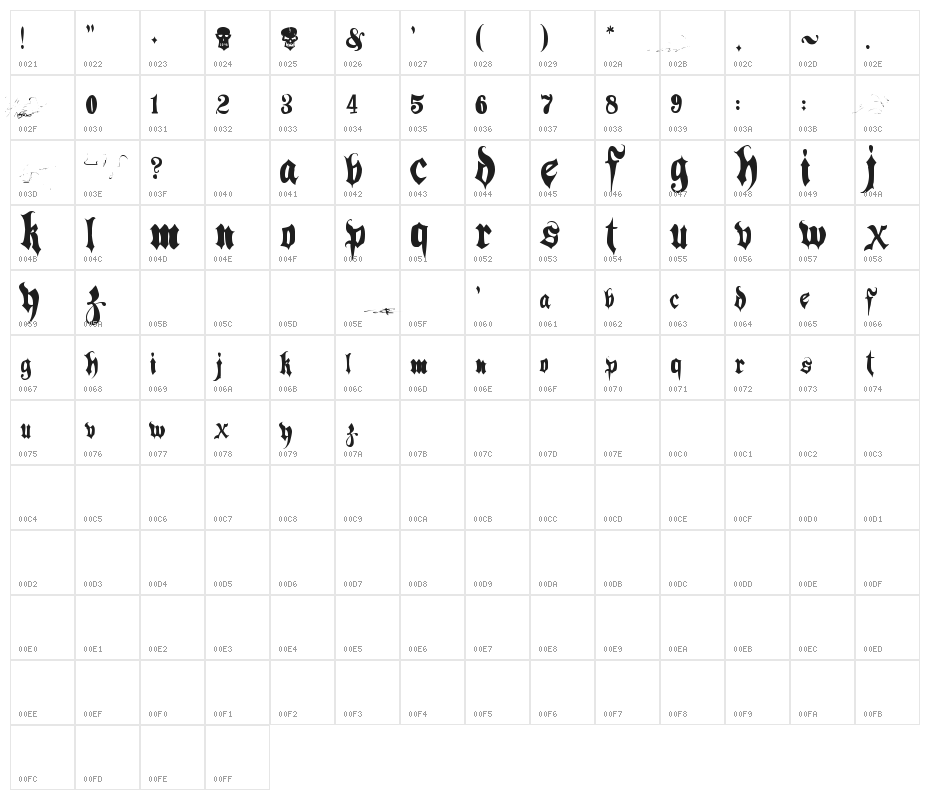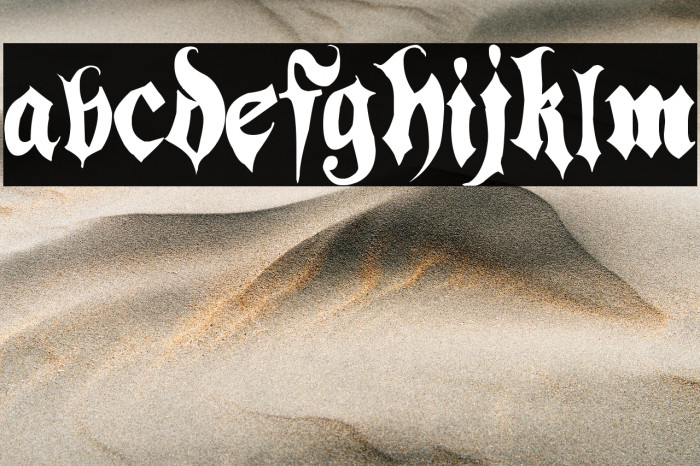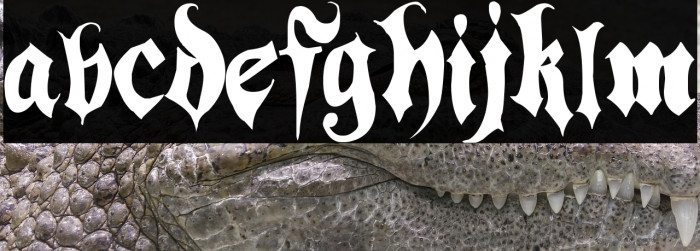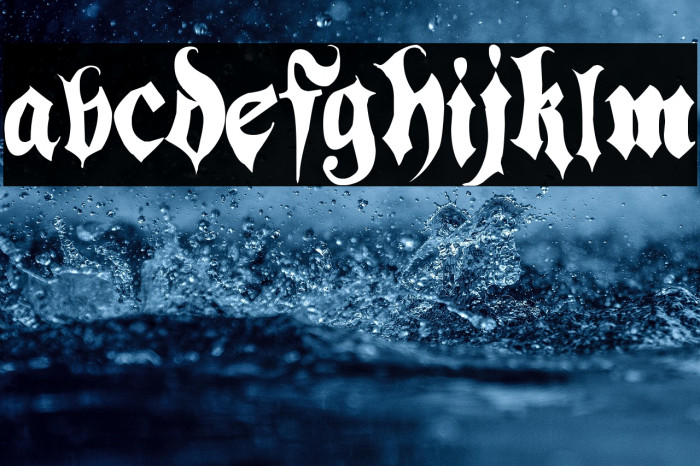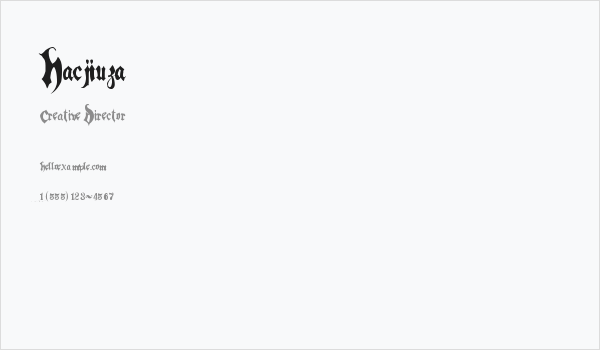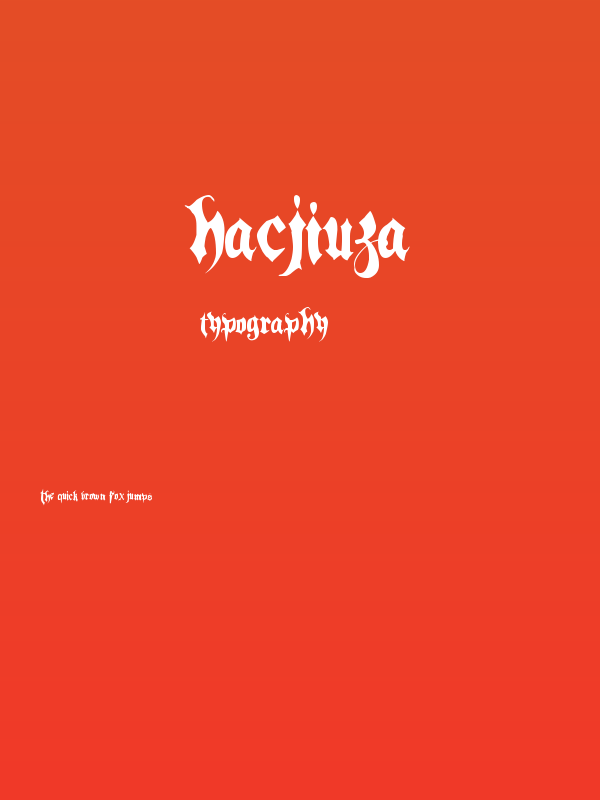
Hacjiuza Font
Hacjiuza Description
This font features a bold and dramatic style with intricate details reminiscent of traditional calligraphy and Gothic influences. The characters are sharply defined with pointed serifs and elaborate strokes, creating a sense of elegance and historical depth. The uppercase and lowercase letters maintain a consistent design, emphasizing verticality and ornate flourishes. The numerals and special characters complement the alphabet with similar stylistic elements, enhancing the overall cohesive appearance. This font's unique aesthetic makes it suitable for projects that require a touch of sophistication and artistic flair.